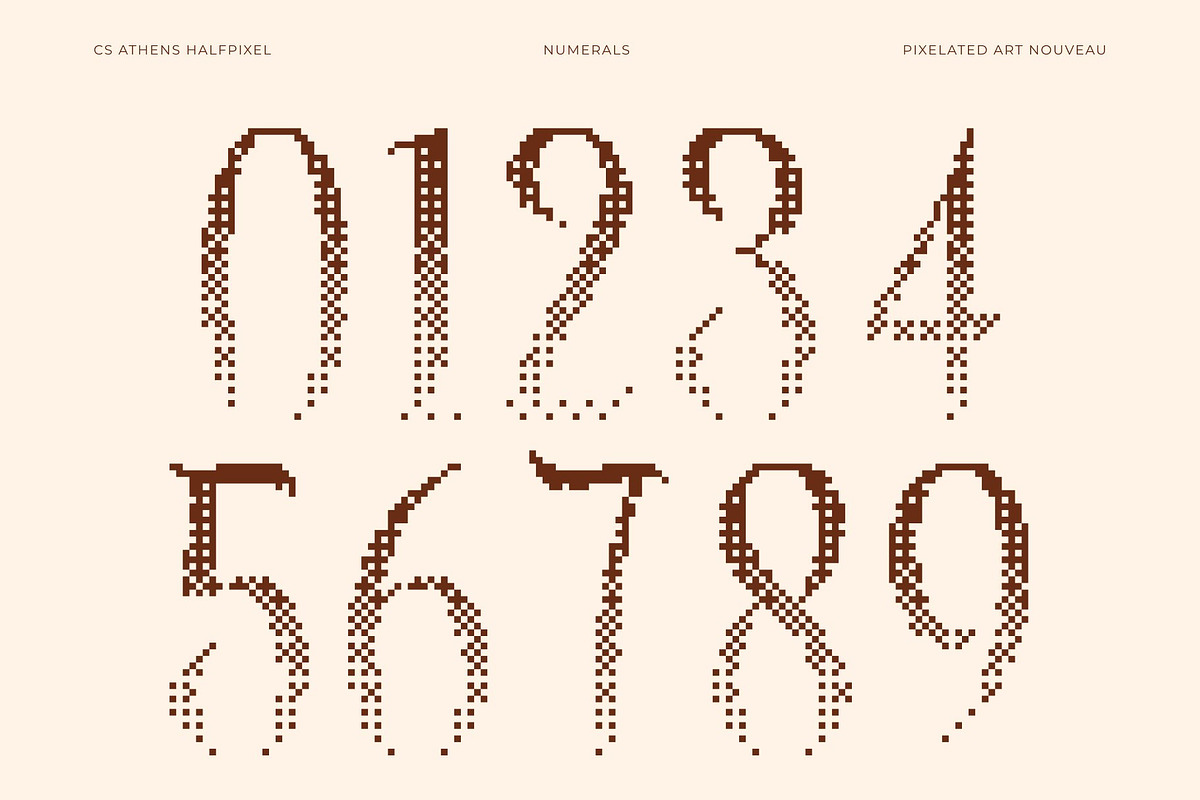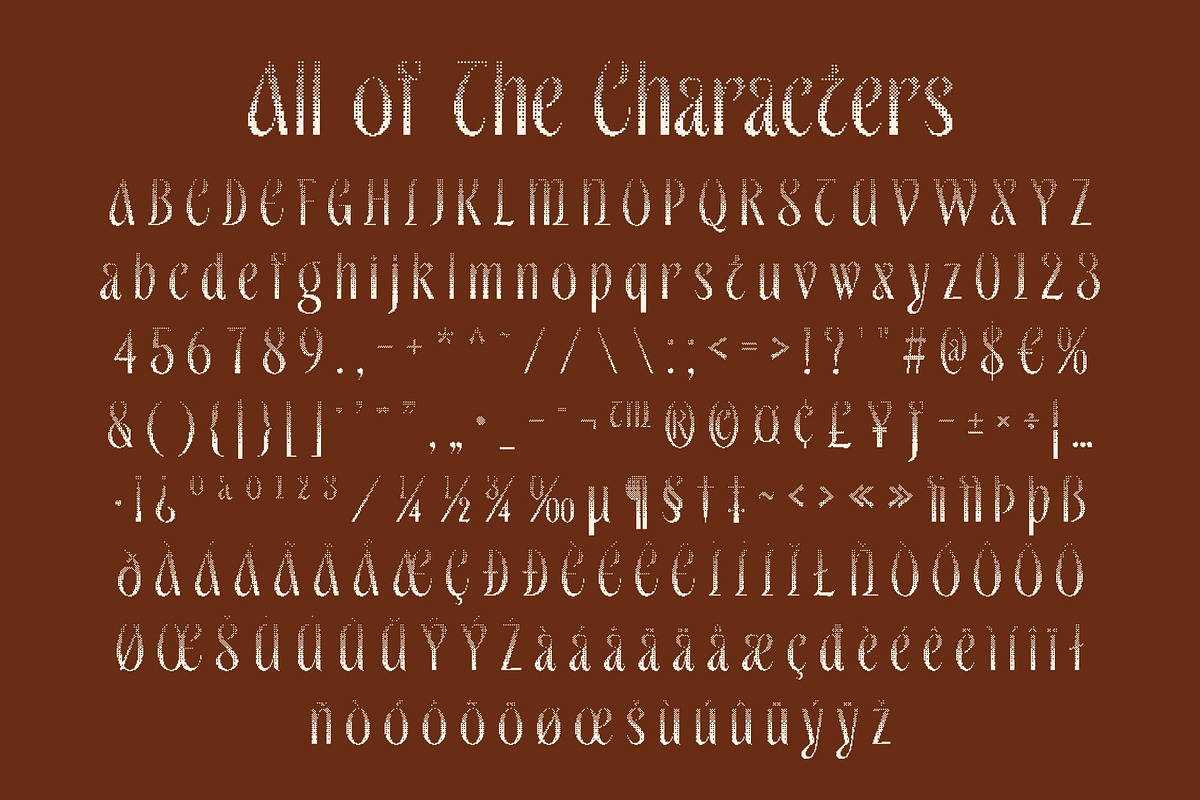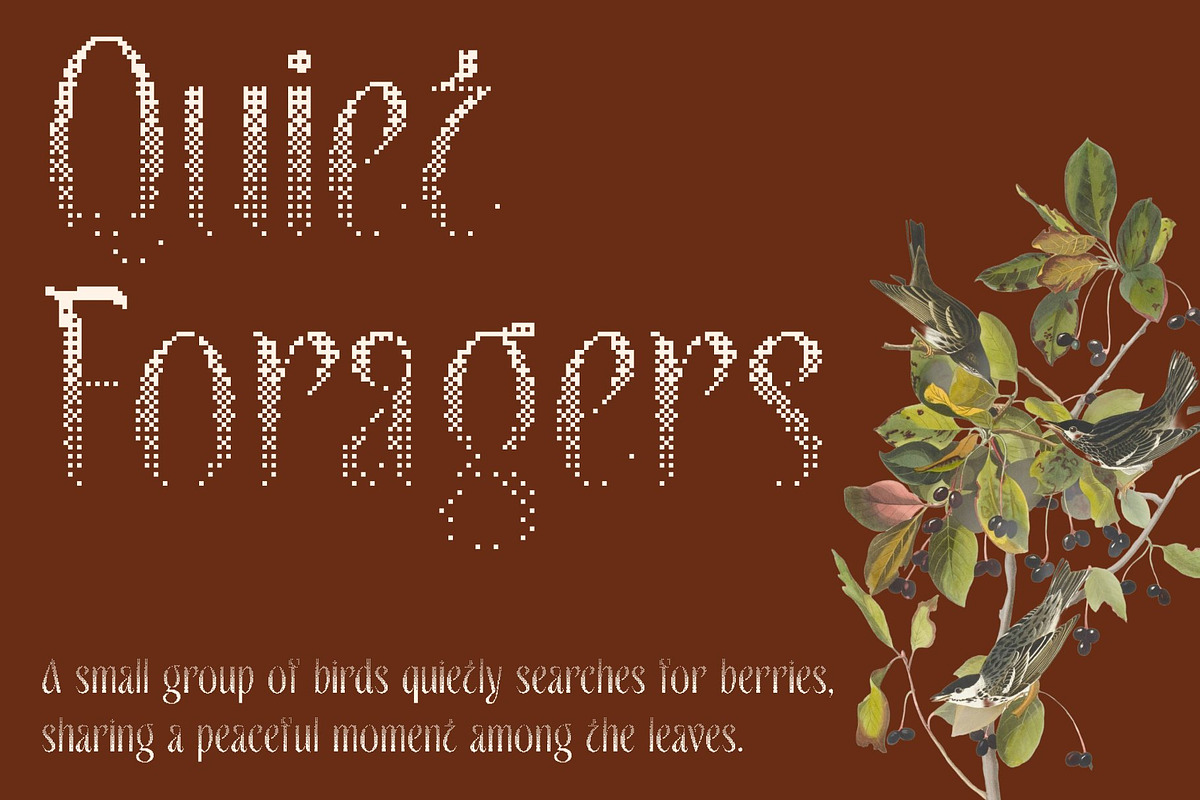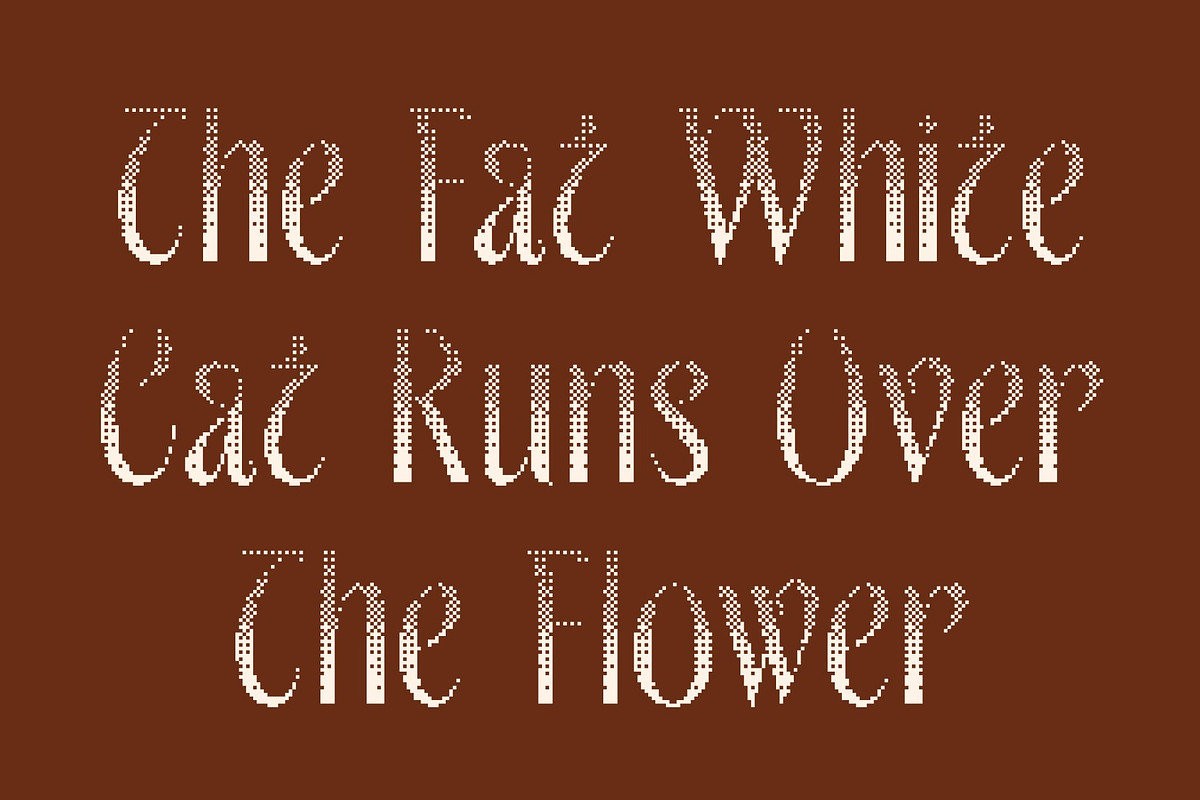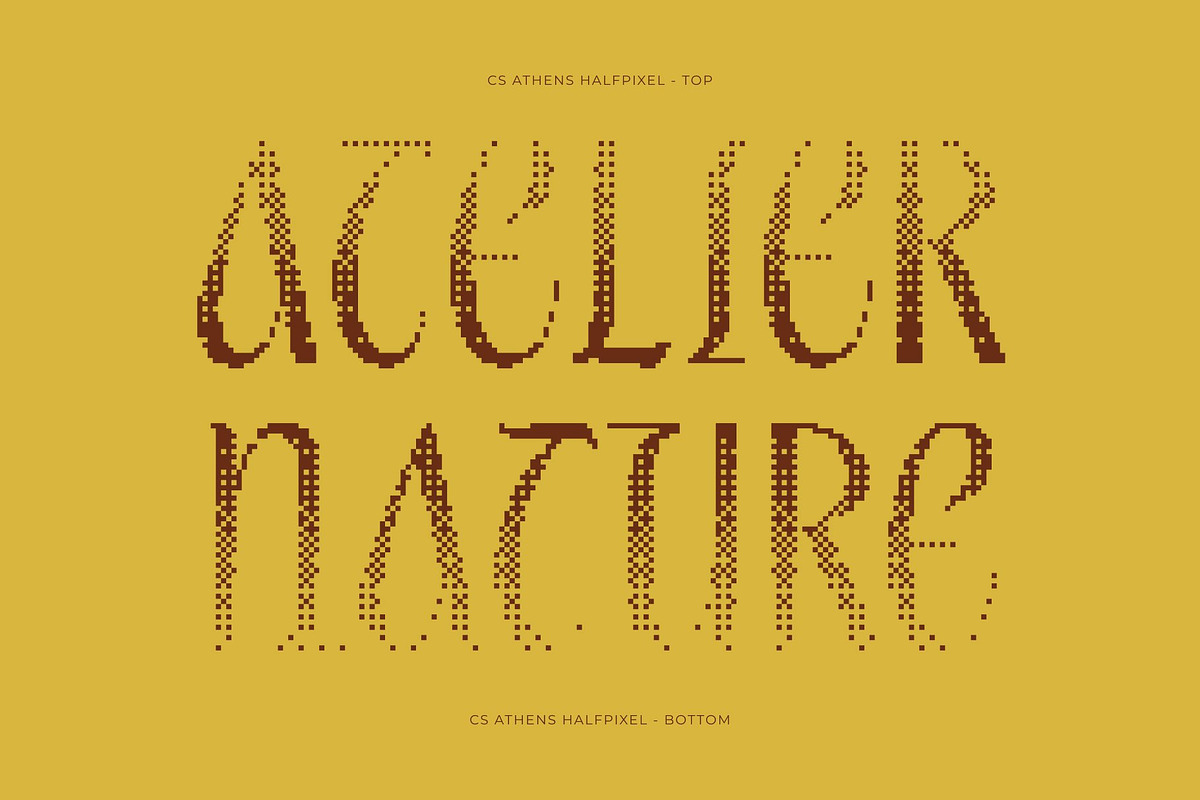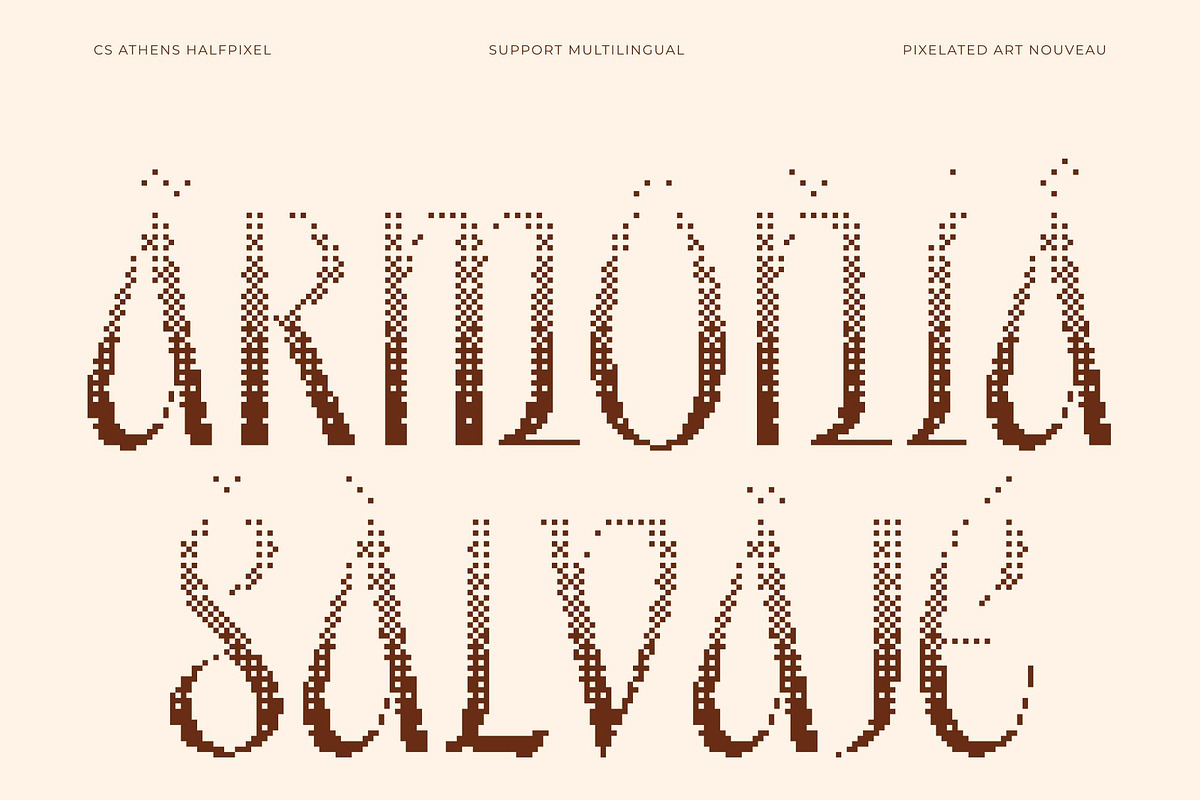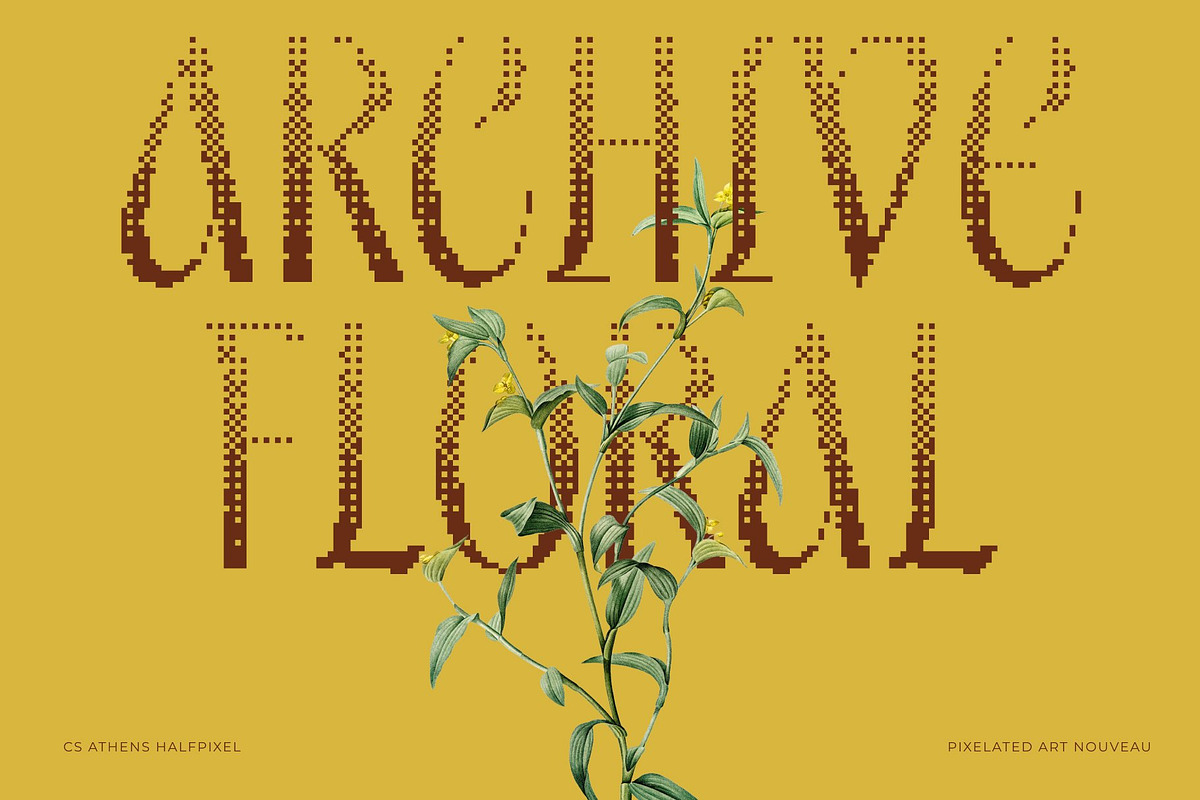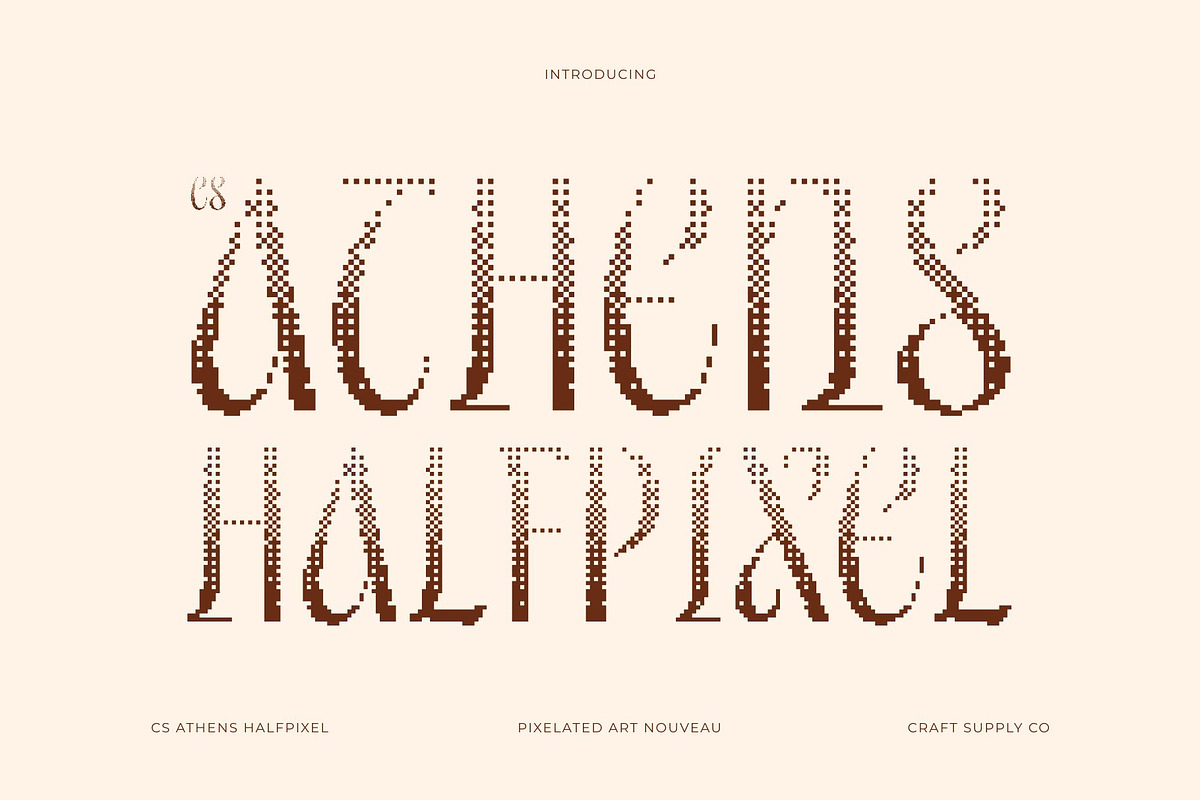
CS Athens Halfpixel
CS Athens Halfpixel – Modern Display Font: Where Art Nouveau Elegance Meets Digital Futurism
Art Nouveau Curves with Organic Contemporary Flow This is a modern Display font that blends the graceful beauty of Art Nouveau curves with contemporary digital aesthetics. Its flowing organic shapes create a sophisticated and artistic visual rhythm that feels elegant, trendy, and expressive. The smooth curves and refined structure give the font a distinctive personality filled with creativity and modern charm.
Halfpixel Effect with Smooth Retro-Digital Texture This font delivers a softer and smoother appearance than traditional rigid pixel fonts. Through subtle anti-aliasing techniques, the edges of each letterform gain a gentle blurred finish that preserves a retro-digital atmosphere while enhancing readability and visual refinement.
Organic Retro-Futurism with Digital Precision Combining flowing Art Nouveau-inspired forms with glitchy digital precision, this font creates a unique balance between organic elegance and technological aesthetics. Its expressive structure evokes retro-futuristic visuals while maintaining a clean and modern appearance, making the font perfect for innovative and artistic creative projects.
Perfect for Entertainment Media and Digital Editorials This font ideal for creative entertainment media, high-end digital editorials, futuristic branding, artistic posters, motion graphics, and experimental visual identities. Its elegant curves and smooth halfpixel styling make it perfect for logos, interfaces, promotional graphics, and contemporary creative campaigns.
CS Athens Halfpixel Regular
CS Athens Halfpixel Italic